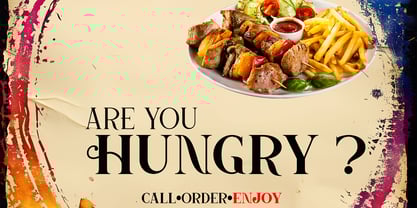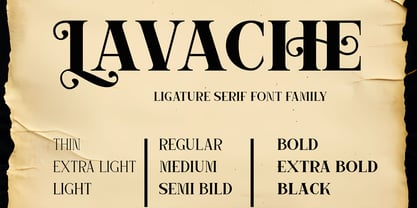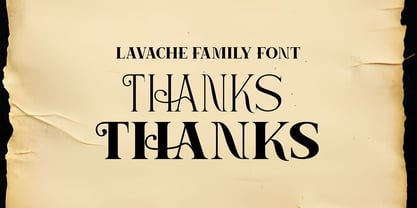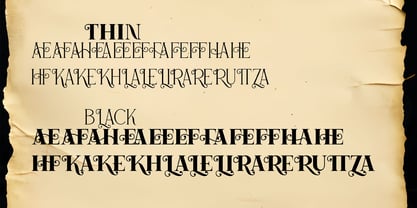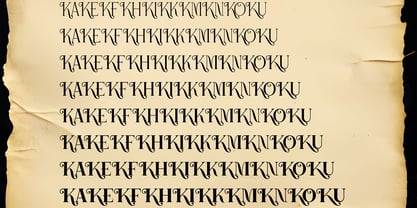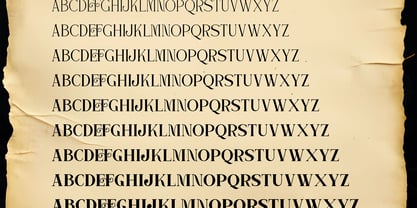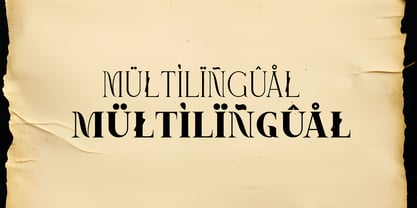
Lavache
by Canden Meutuah
The Lavache Font Family was designed by Canden Meutuah and published by Canden Meutuah. Lavache contains 10 styles and family package options. More about this family
Featuring graceful curves, high contrast strokes, and unique ligature details, Lavache blends vintage charm with modern precision. It includes a full range of weights from Thin to Black, offering unmatched versatility for your creative projects. Whether you’re designing luxury branding, book covers, editorial layouts, wedding stationery, or logo designs, Lavache adapts beautifully across styles. Its refined aesthetic and professional structure make it ideal for designers seeking both impact and elegance. With thoughtfully designed alternates and ligatures, Lavache is more than a font—it’s a complete typographic system ready to elevate your work. This font is perfect for posters, logo designs, editorial titles, album covers, fashion branding, and display titles, attracting attention with a distinctive touch.
Designers: Canden Meutuah
Foundry: Canden Meutuah